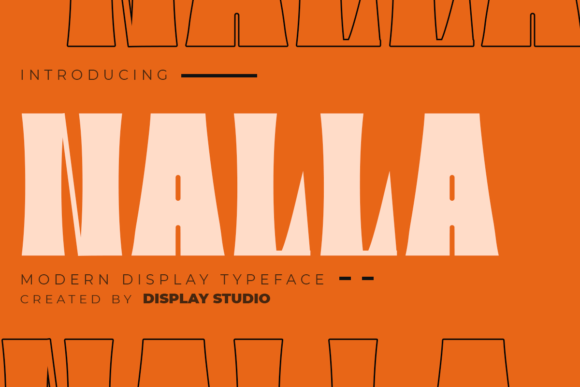
Behold Nalla, a font that radiates boldness and a thick, captivating presence. This remarkable display font is crafted to amplify your creative endeavors, adding an aura of elegance and sophistication to every project.
Unleash your inner artist with Nalla, the ultimate font for jersey lettering. Whether you're a seasoned designer or a budding enthusiast, Nalla's distinctive style will elevate your creations to new heights. Its striking characters exude a sense of strength and individuality, demanding attention and leaving a lasting impression.
Immerse yourself in Nalla's versatility, effortlessly adapting to a myriad of projects. From eye-catching logos and branding materials to captivating posters and social media posts, Nalla effortlessly transforms your words into captivating designs. Its bold and striking presence commands attention, ensuring your message resonates with your audience.
Ascend to new creative heights with Nalla, the font that sparks imagination and ignites passion. Experience the thrill of designing like never before, as Nalla empowers you to craft designs that captivate and inspire. Join the ranks of creative visionaries who have discovered the transformative power of Nalla, and embark on a journey of limitless creativity.